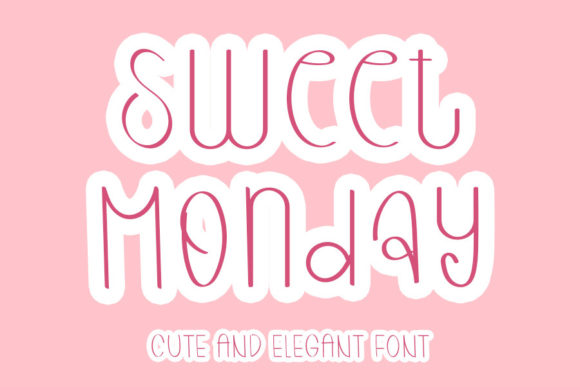
Sweet Monday Font
In a world of digital creations, where individuality and expression take center stage, meet Sweet Monday Font - a captivating script font that weaves its magic on the path of modern applications. Its strokes, as delicate as the first rays of dawn, dance across the screen, creating a visual symphony that speaks to the heart.
Step into a realm where simplicity and sophistication intertwine, where every letter, every curve, and every stroke carries a story. Sweet Monday Font is not just a font; it's an experience, a gateway to a creative haven where your ideas flourish.
Picture this: Your app, adorned with the elegance of Sweet Monday Font, beckons users with its understated charm. The slender lines and tidy appearance create a visual landscape that is easy on the eyes, inviting users to delve deeper into your digital masterpiece.
With its minimalist style, Sweet Monday Font allows your content to shine. Whether it's a captivating headline or an informative description, the words you choose take on a new life, captivating attention and leaving a lasting impression.
But Sweet Monday Font's allure extends beyond its aesthetic appeal. Its versatility knows no bounds. From sleek and modern designs to playful and whimsical creations, this font adapts seamlessly to your vision. Whether you're crafting a captivating social media post, designing a user-friendly interface, or crafting a heartfelt invitation, Sweet Monday Font is your trusted companion.
And if you're one who values a personal touch, Sweet Monday Font offers a wealth of customization options. Tweak the spacing, adjust the size, and experiment with different colors to create a truly unique look that resonates with your brand's identity.
Join the creative revolution and embrace Sweet Monday Font, the ultimate choice for modern app design. Let your imagination soar as you create digital experiences that captivate, inspire, and leave an indelible mark on your users.